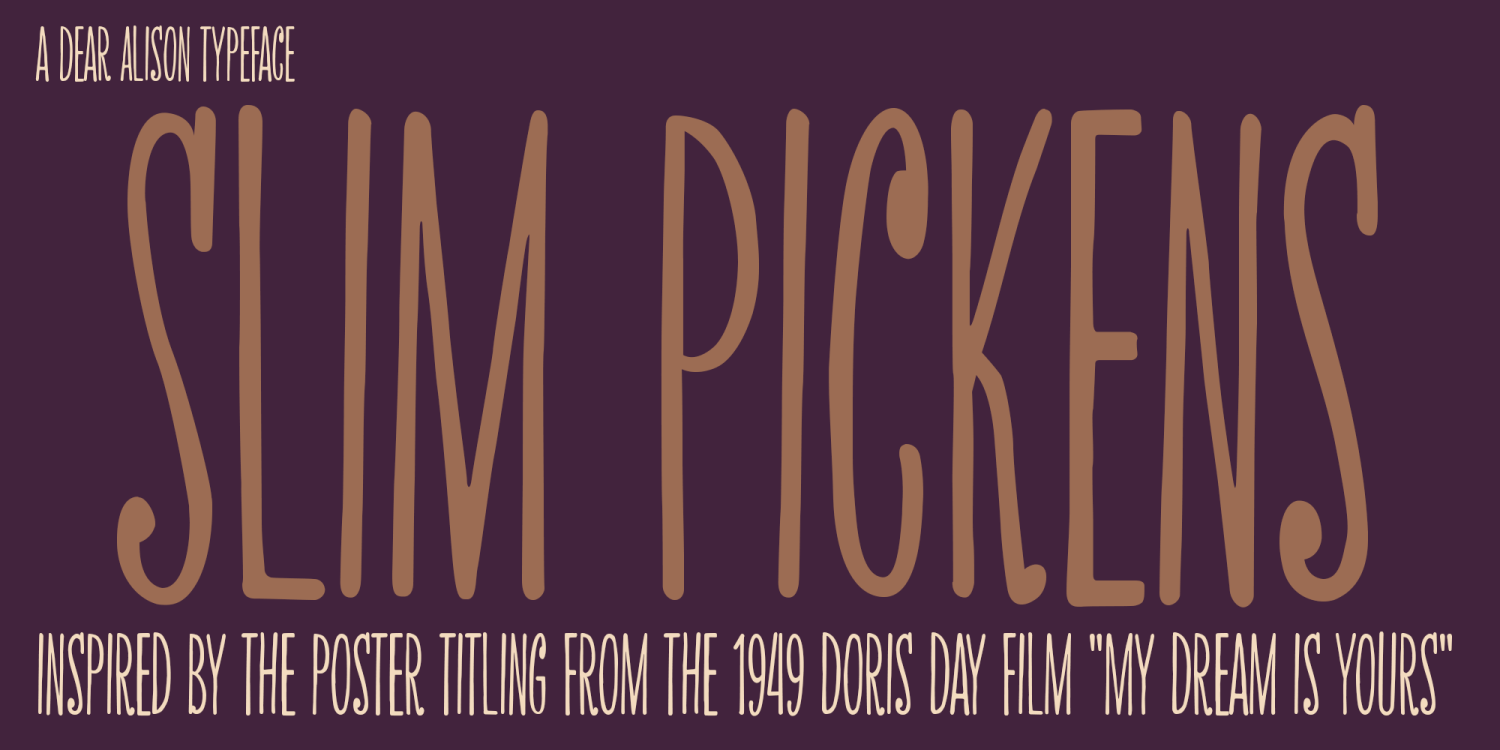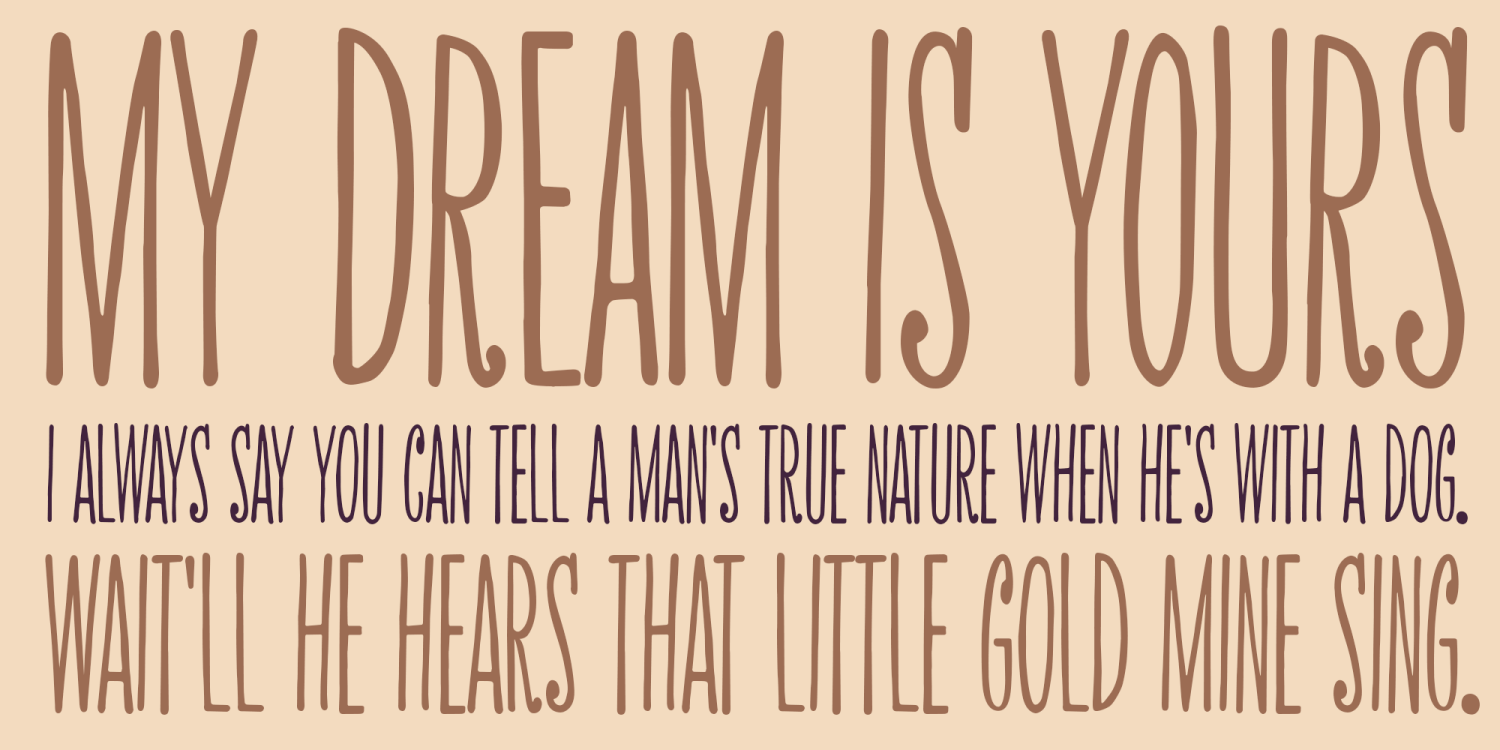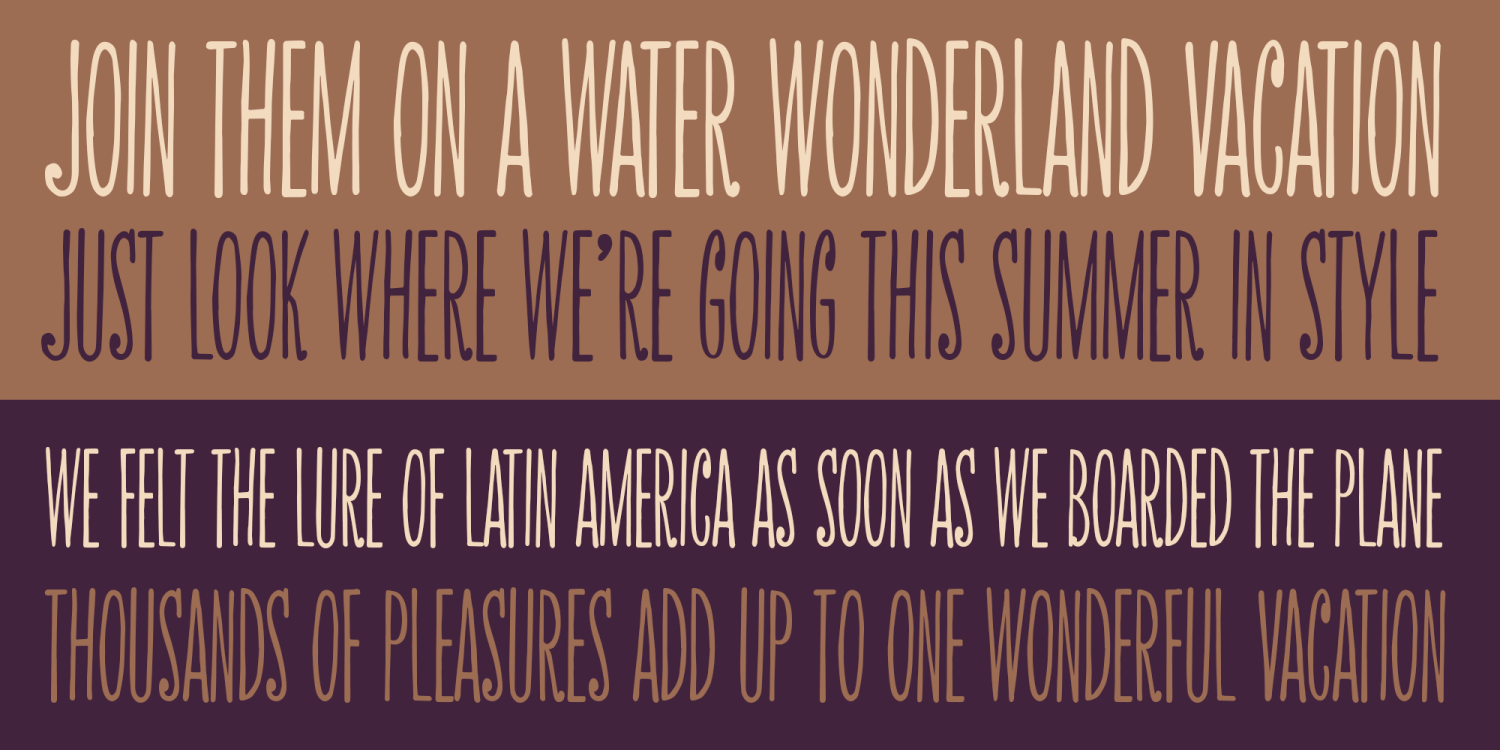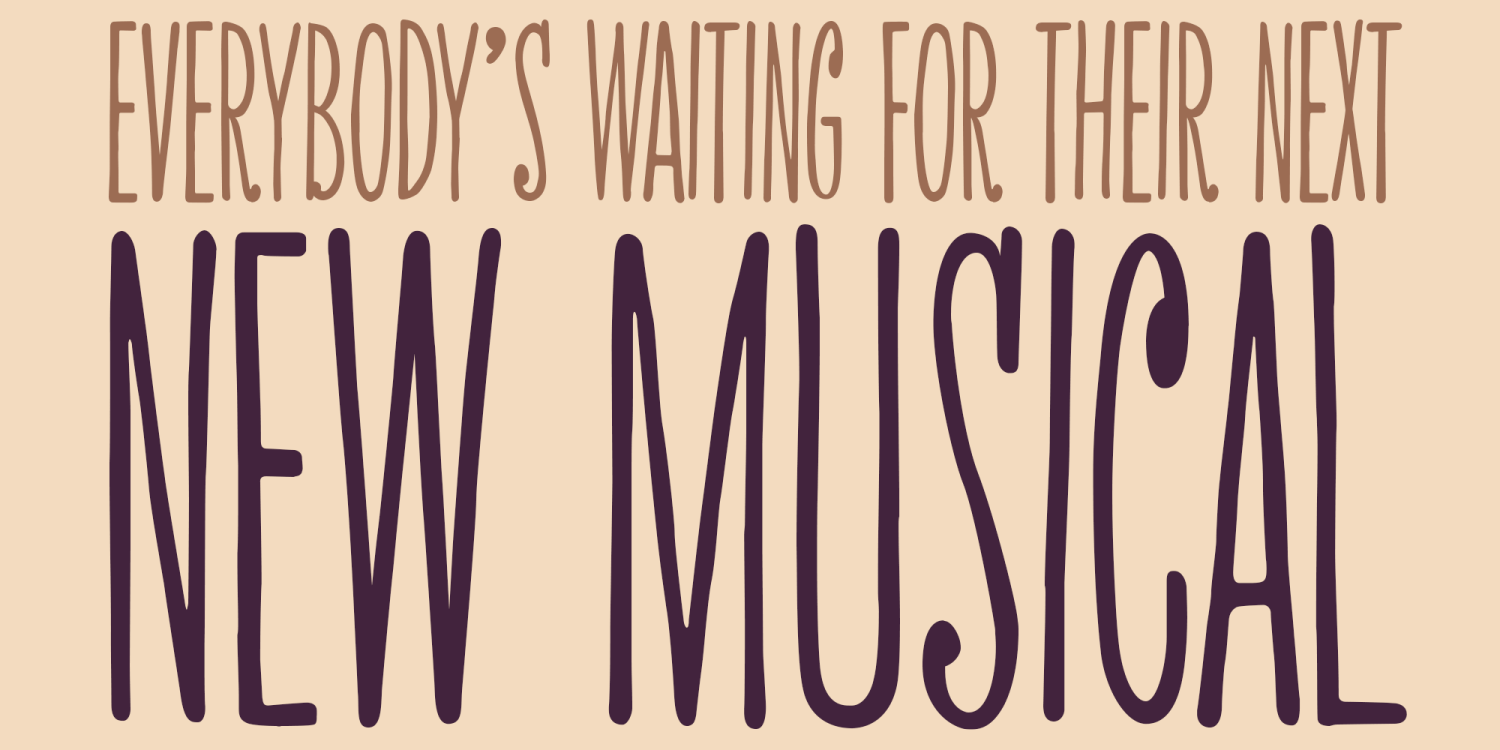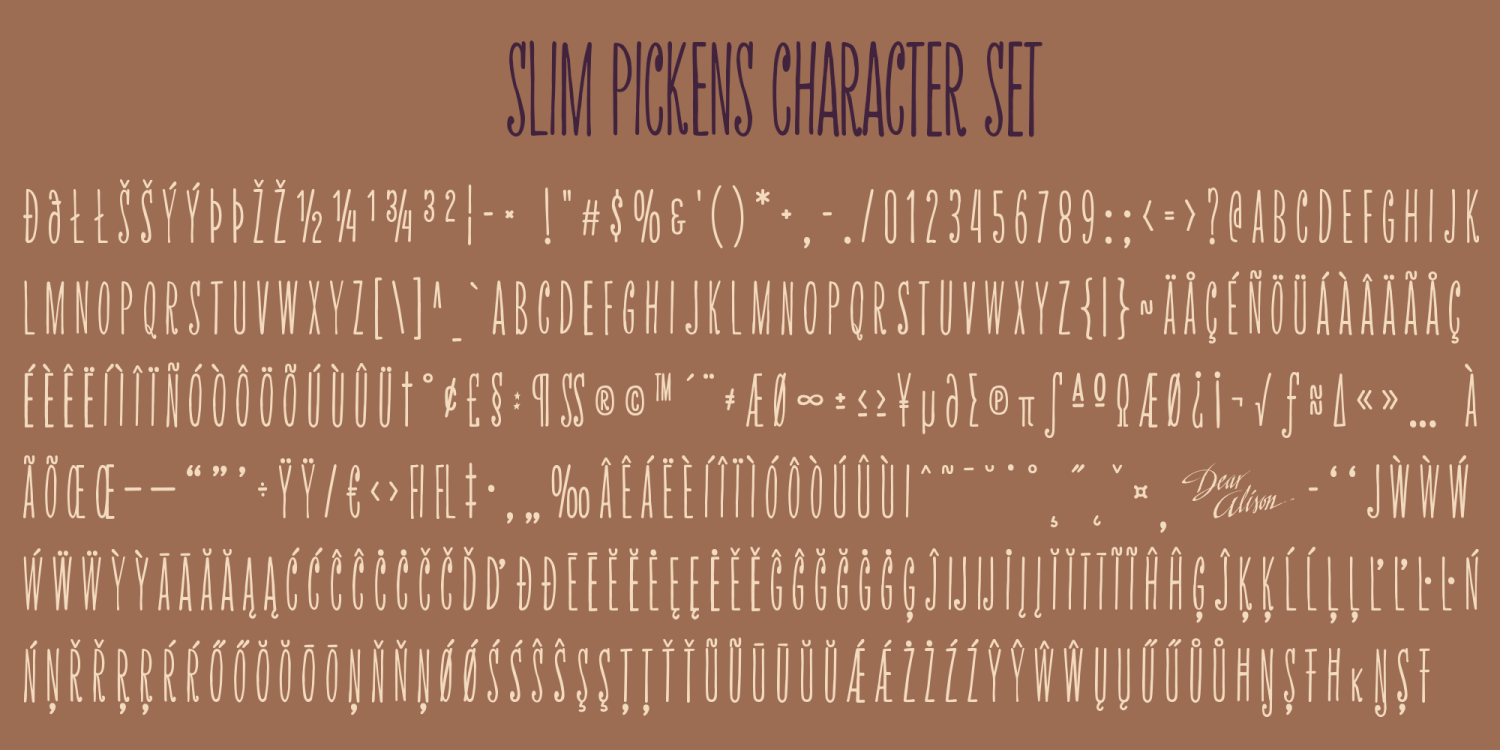
Slim Pickens
Font Family by Dear Alison
Have you ever seen lettering that you can connect with but have no clue where you've seen it before? It strikes a chord with certain feelings but you don't know why.
Slim Pickens was inspired by the lobby card and poster titling from the 1949 Doris Day film "My Dream is Yours", and keys into the look and feel of vintage handwritten film poster titling. Something about that era in film made it easy to tie visuals with getting swept up in all sorts of emotions, good and bad.
A narrow font, full of life and wonderfully hand-drawn, Slim Pickens is an accent font you'll want to have in your font collection for those tight fits, so buy it today and fill in the gaps of your designs with a little nostalgia!